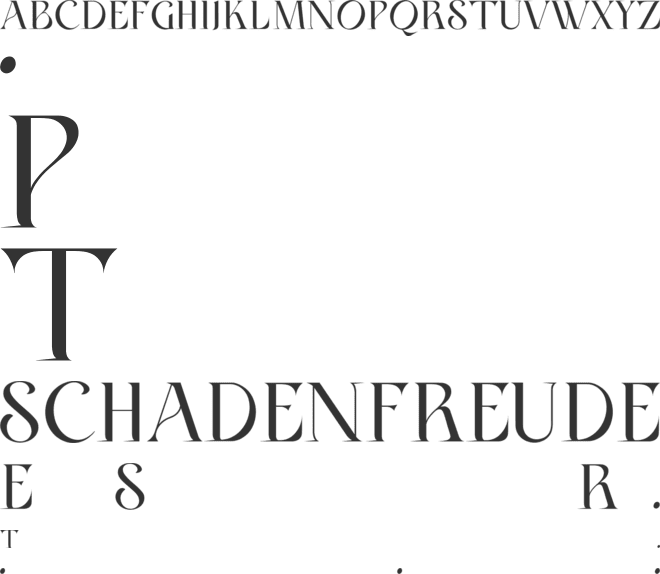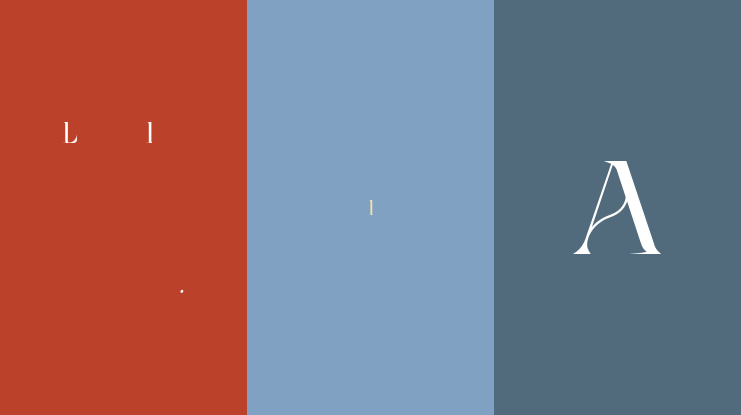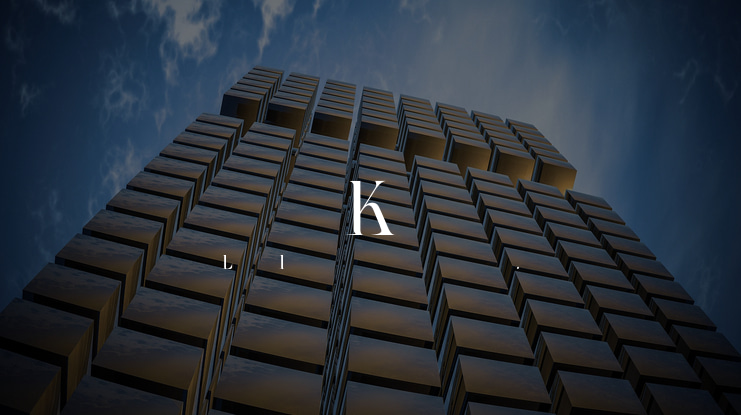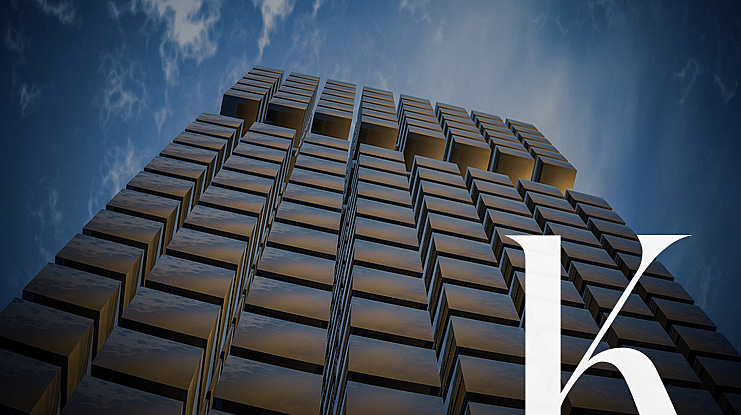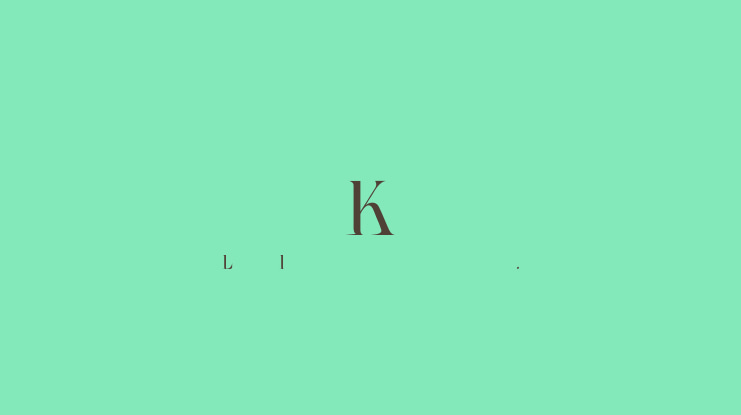
Keneth Font
This is a Modern Ligature Serif typeface crafted & designed by eztudio. Its soft curves mixed with high contrast glyphs, give it a feminine and masculine quality. It has a classy and modern look that can be used for logos, branding, invitations, stationery, wedding designs, social media posts, and much more!